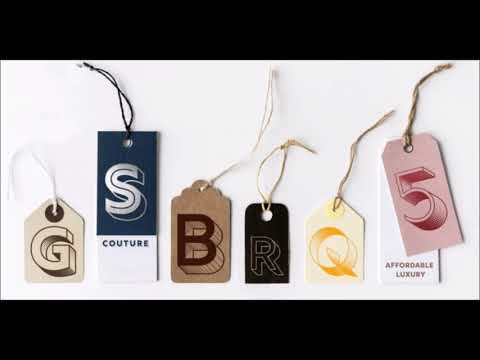
Rig Solid is a sans serif typeface created by Jamie Clarke and published by Jamie Clarke Type which it comes in 13 powerful display styles, a range of styles over four weights, over 220 glyphs and supporting almost 200 languages. Rig Solid is ideal for typographic use, branding, display, headline, logo, packaging, poster etc.
Rig Solid font details
Designer: Jamie Clarke
Foundry: Jamie Clarke Type
Glyphs: Basic Latin, Diacritics, Euro, Central Europe, Ligautures, Alternates, SmCaps
Styles: Zero, Light, Halftone, Light Fill, Medium Outline, Medium Halftone, Medium Fill, Medium Lines, Bold Outline, Bold Halftone, Bold Fill, Bold Iline Solo, Bold Inline, Bold Reverse